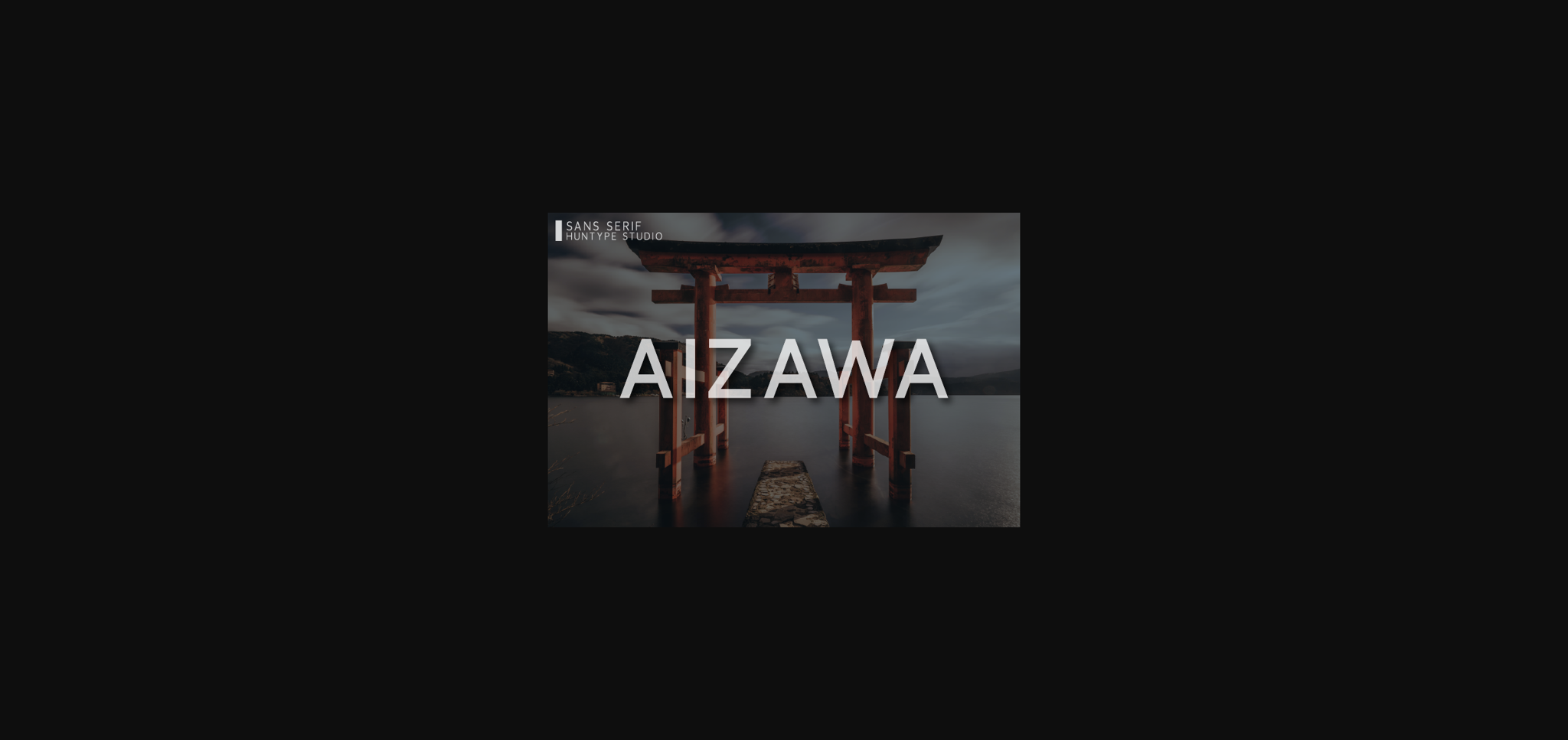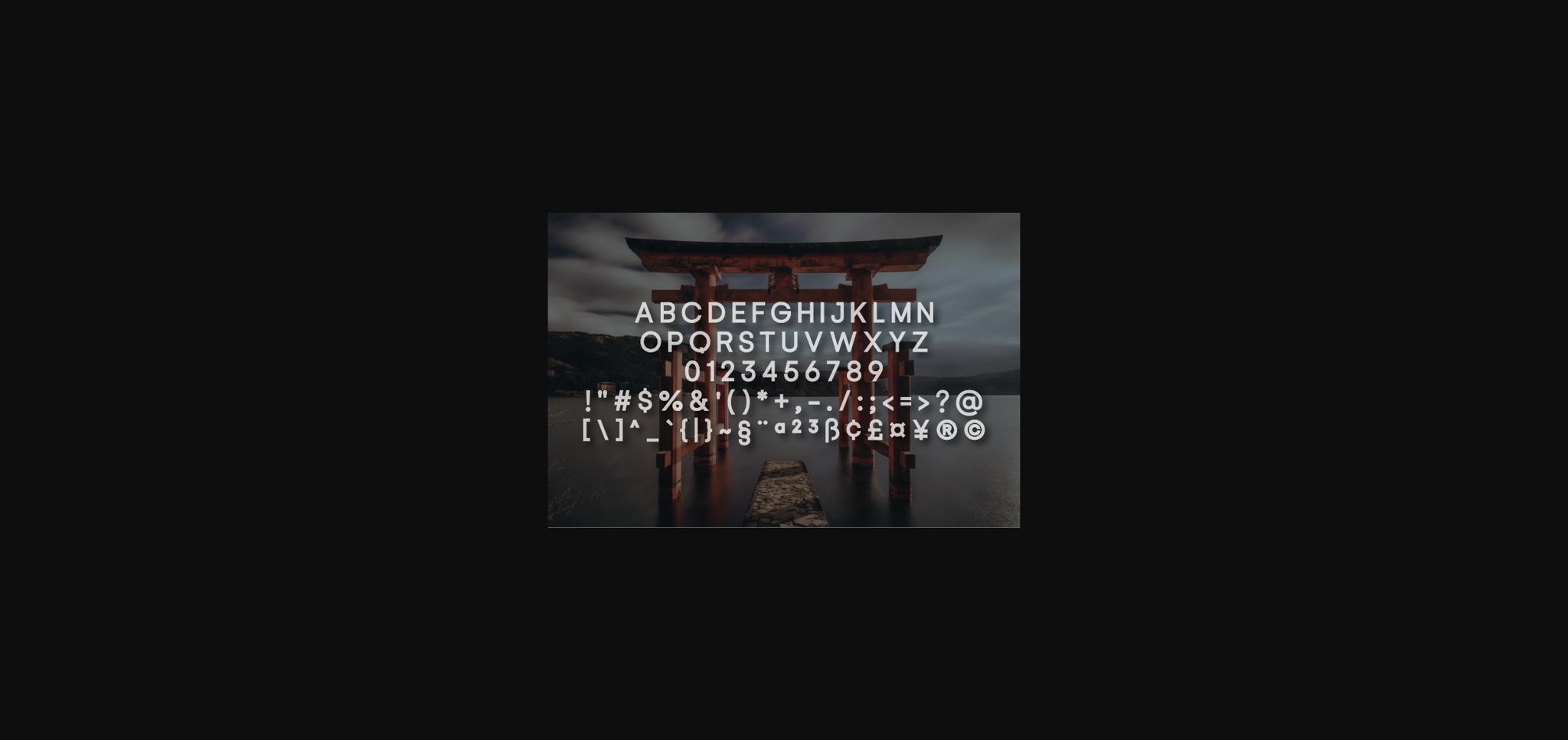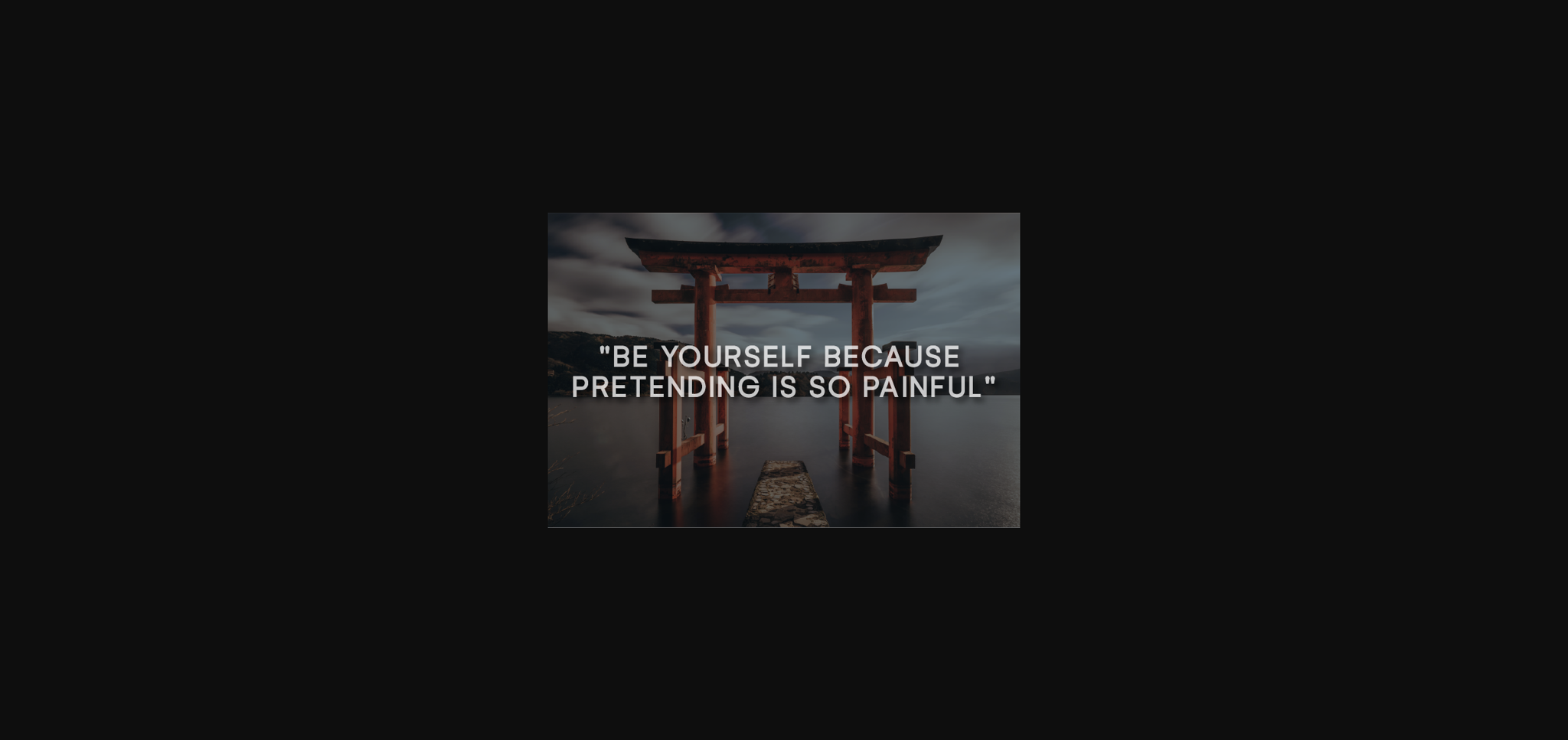
About Aizawa Font
Aizawa is a simple and casual sans serif font with an undeniably clean feel. With its neat and beautiful arrangement of letters, this typeface will look outstanding in both formal and non-formal designs.